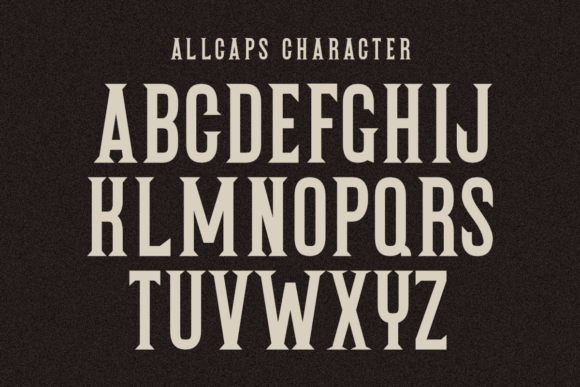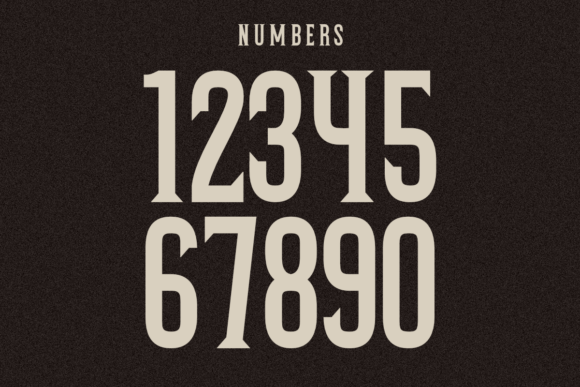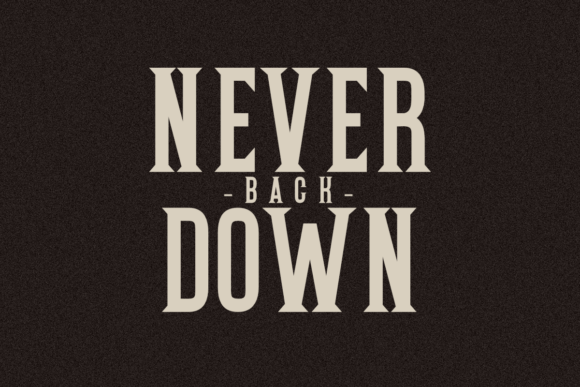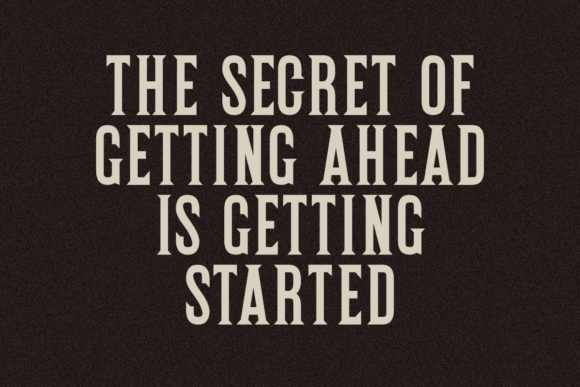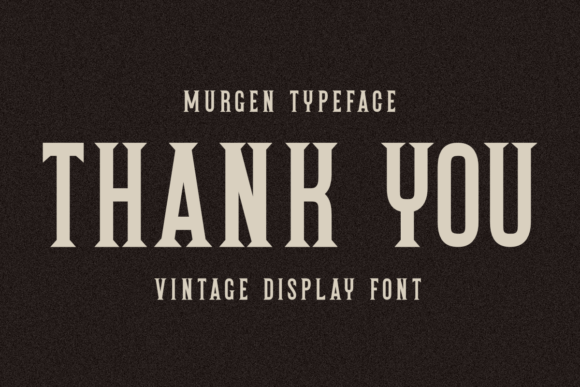
Introduction to Murgen Font
Have you ever been working on a creative project, pouring your heart and soul into it, only to feel like something is missing? The perfect design element can make all the difference, elevating your work from ordinary to extraordinary. For designers seeking a bold and commanding presence, the Murgen Font is an ideal choice.
This vintage display font is not just a design resource, but a game-changer for projects that demand strength and character. With its tall, sharp serifs and retro style, Murgen Font adds timeless charm to any design. Whether you’re creating western-inspired graphics, sports team merchandise, or bold statement quotes, this font is sure to make your work stand out. Plus, with its transparent background and high-quality design, you can easily use it for various applications, from Cricut crafters to Print On Demand products.
Key Features of Murgen Font
- Perfect for use in logos, branding materials, and other creative projects where a distinctive and modern look is desired.
Honest Review: Murgen Font
I recently had the opportunity to work with the Murgen Font, and I must say it’s been a game-changer for my design projects. This font is a fantastic addition to any design resource, offering a high quality and versatile typeface that’s perfect for creative projects.
- ✨ Clean and modern design that’s perfect for modern designs and creative projects
- ✨ High quality typography that’s consistent across different font sizes and styles
- ⚠️ Limited font styles and weights, which may not be suitable for more complex design projects
- ⚠️ Not ideal for use with very small text sizes, as it may become difficult to read
Design Tips
To get the most out of Murgen Font, use it in creative projects such as logos, posters, and infographics. You can also use it in combination with other design resources to create a unique and eye-catching design.
Murgen Font is commonly used in design projects that require a high-quality, elegant, and modern look. It is particularly useful for creating logos, titles, and headings that require a touch of sophistication and style.